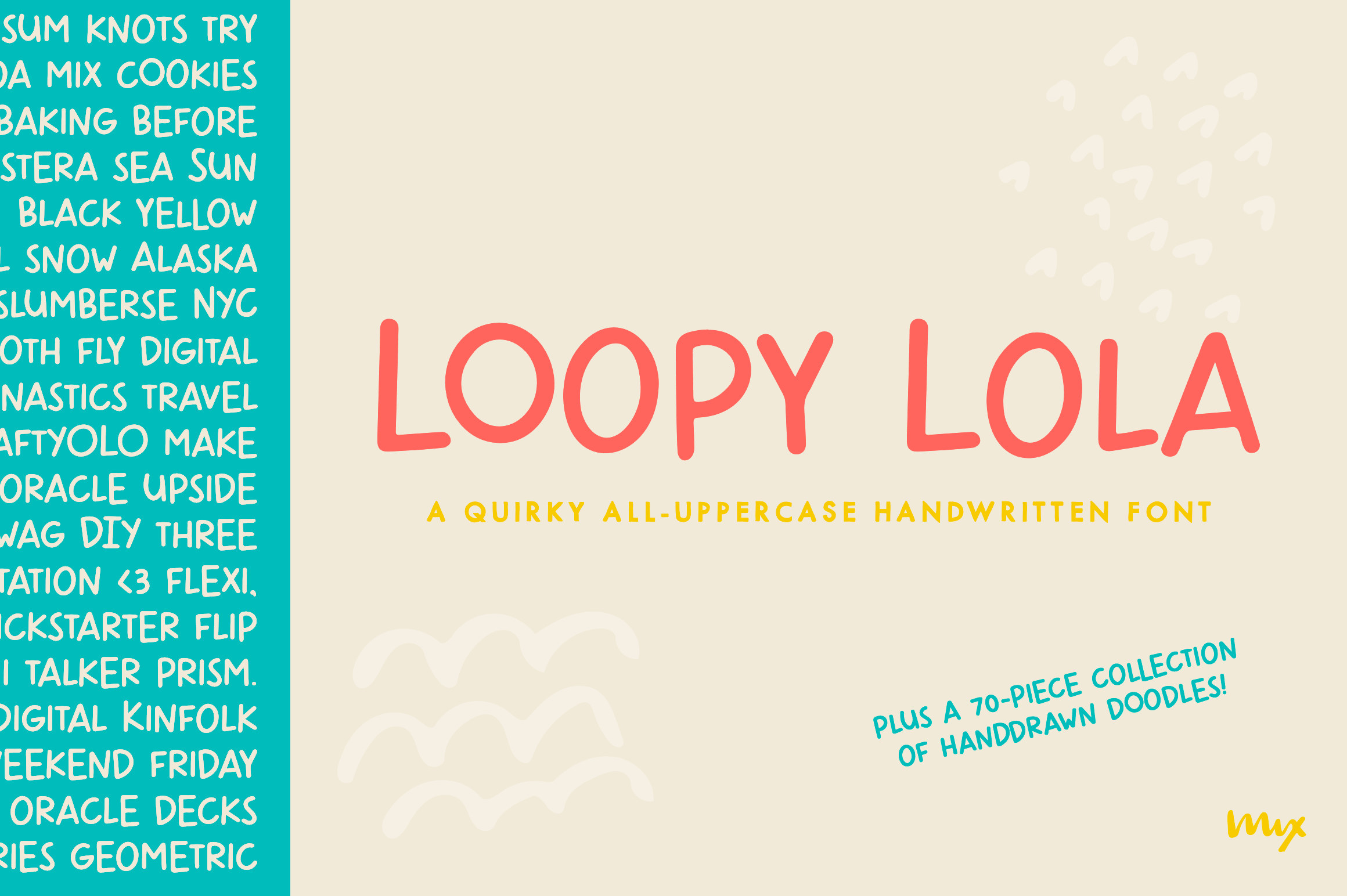
MIX LOOPY LOLA is a very fun, quirky, off-kilter all-uppercase handwritten font. This handdrawn typeface is perfect for social media graphics, edgy posters, and bold headlines. Match the font with any of the accompanying loopy doodled elements will just give your art that added bit of cute.